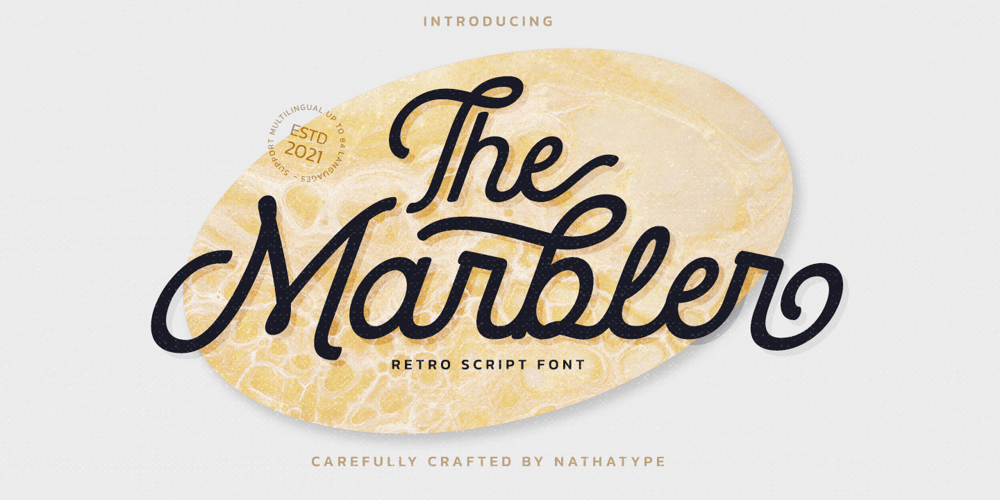
The Marbler Font Family was designed by Donis Miftahudin and published by Nathatype. The Marbler contains 1 styles and family package options. Are you looking for a handwritten font? Do you dream of creating headings that stand out and inspire creativity, imagination, and endless fun? Wait no more, we will give you the best choice.The Marbler-A Handwritten FontThe Marbler is a handwritten font with retro look. Inspired from 1960s style. Every stroke and curve was created to entice happiness and elegance. The best choice to ensure a great font match for your designs and projects! Well suited to titles, poster designs, branding, quotes, and logos.Our font always includes Multilingual Options to make your branding globally acceptable. Features: Ligatures Stylistic Sets Swashes PUA Encoded Numerals and Punctuation Thank you for downloading premium fonts from Natha Studio